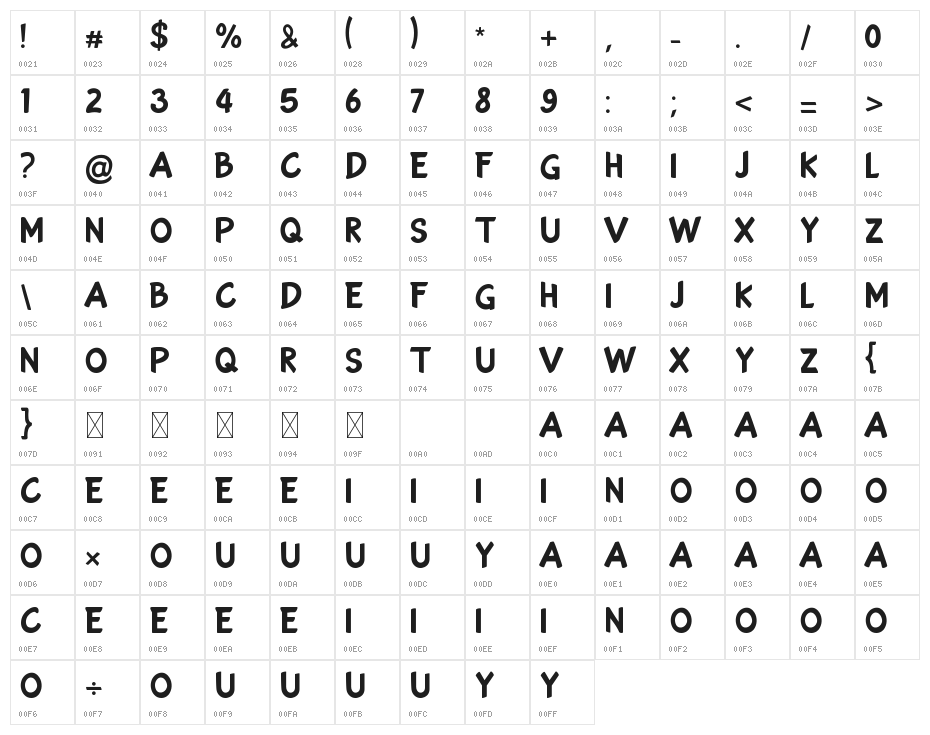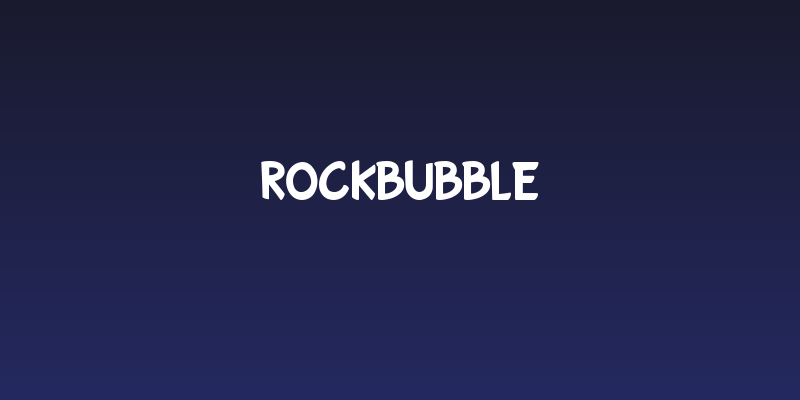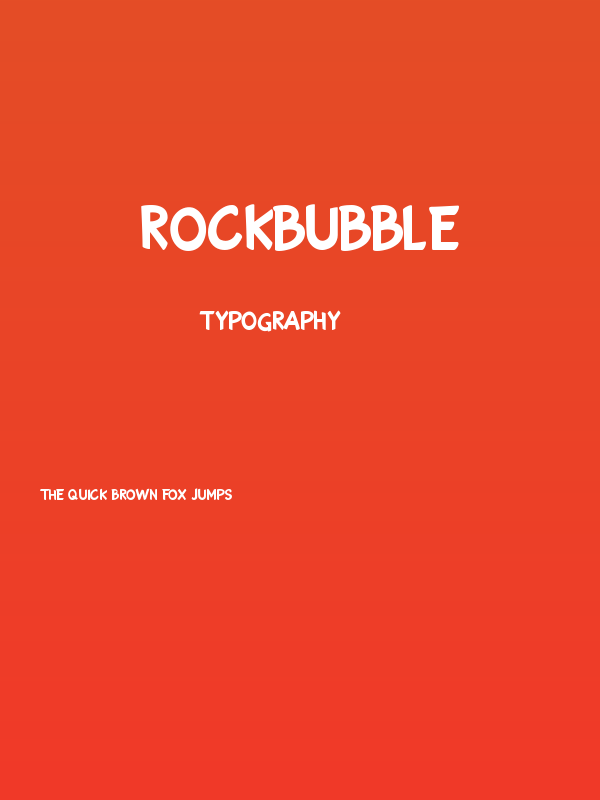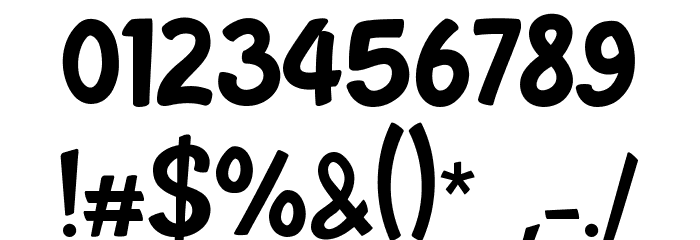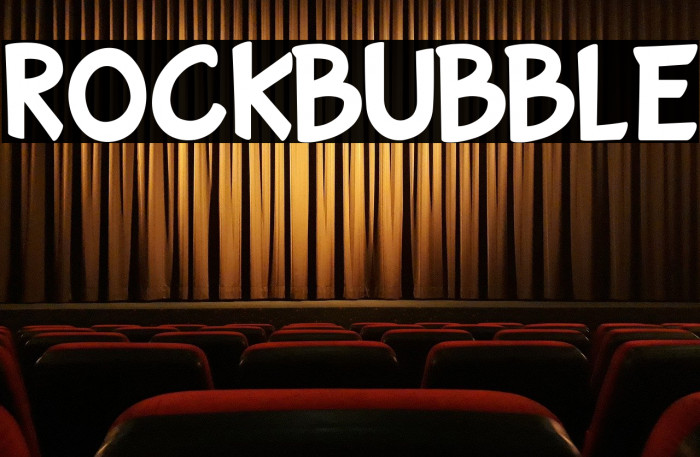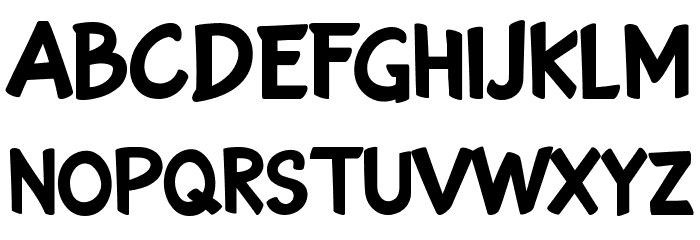
ROCKBUBBLE Font
ROCKBUBBLE Description
This playful and bold font features rounded, bubble-like characters that convey a sense of fun and energy. The uppercase and lowercase letters are consistent in style, with smooth curves and a slightly exaggerated thickness that adds to its whimsical appearance. The numbers and special characters maintain the same bubbly aesthetic, making it versatile for various creative applications. The font's design is approachable and friendly, making it suitable for projects aimed at a younger audience or for those seeking a lighthearted and informal tone.
| Proposed Projects | Ideal for children's books, playful branding, party invitations, and casual social media graphics. |